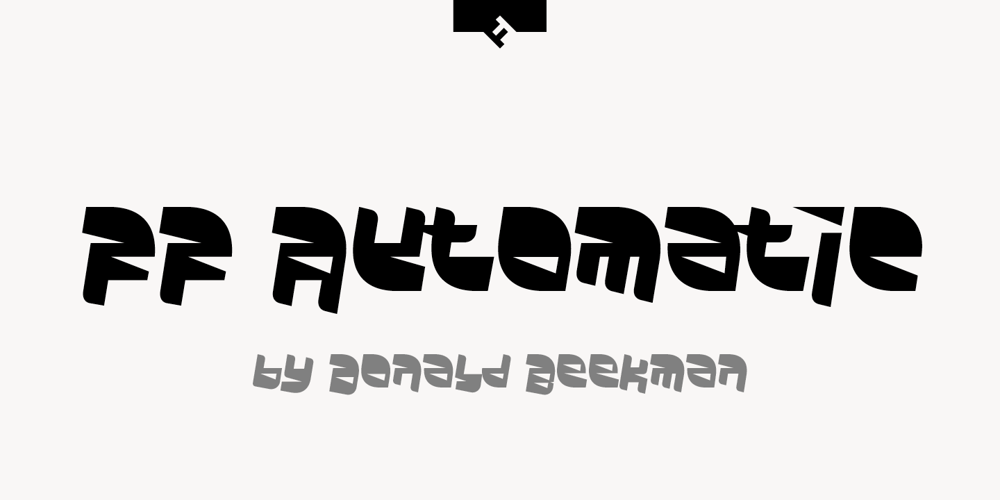
FF Automatic Font Family was designed by Donald Beekman and published by FontFont. FF Automatic contains 1 styles and family package options. Dutch type designer Donald Beekman created this display FontFont in 1999. The font is ideally suited for music and nightlife, poster and billboards as well as software and gaming. FF Automatic provides advanced typographical support with features such as ligatures and case-sensitive forms. It comes with proportional oldstyle figures.